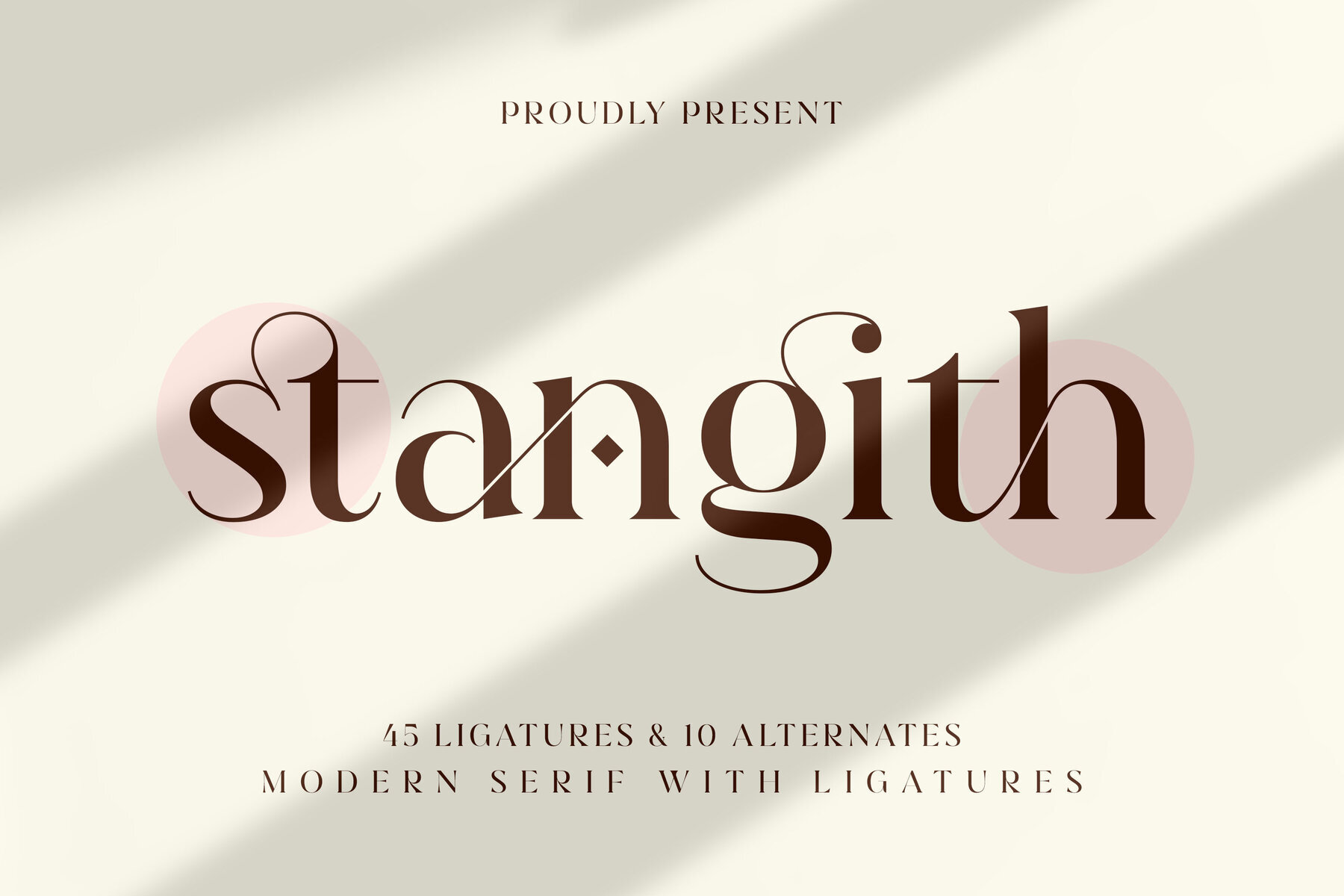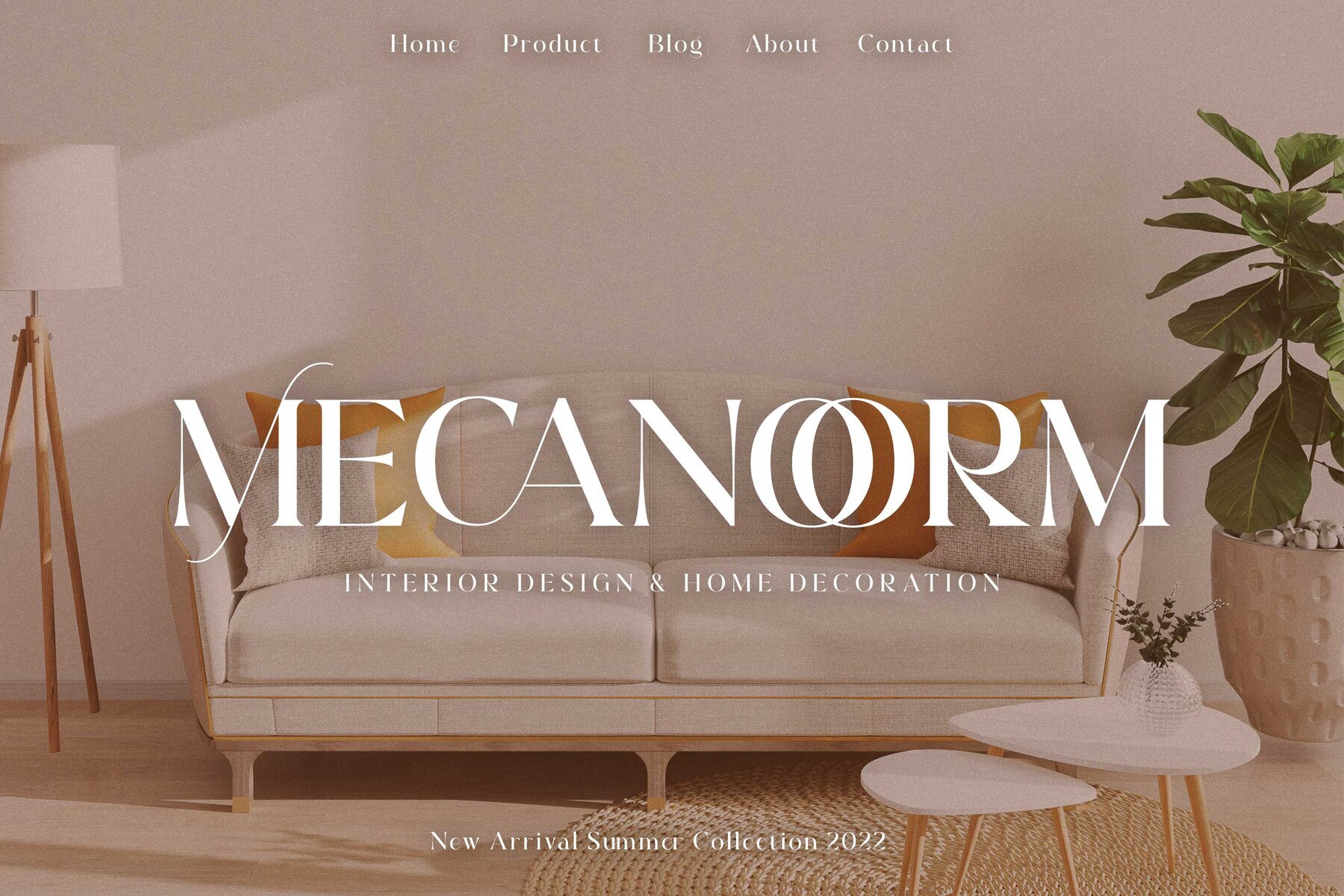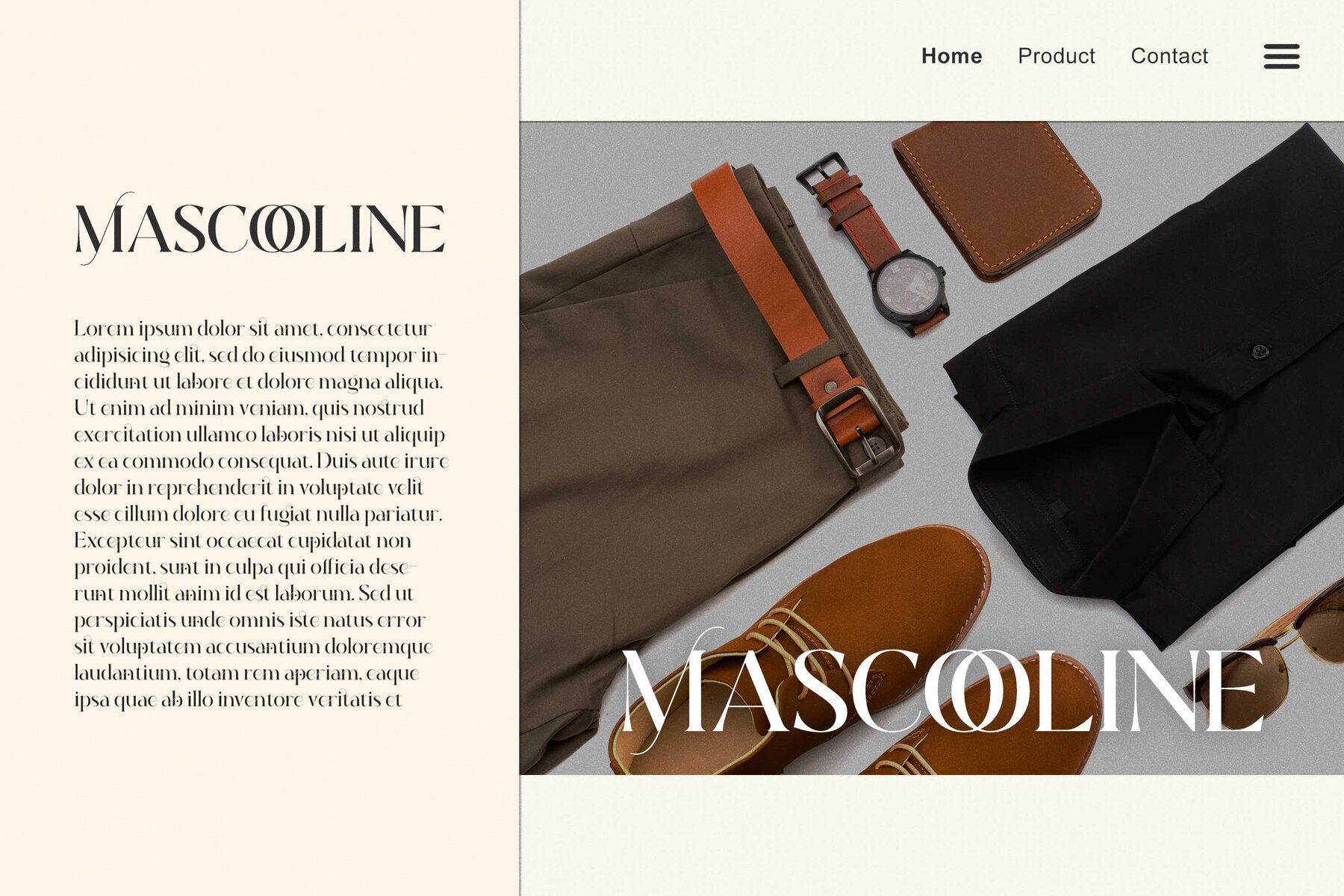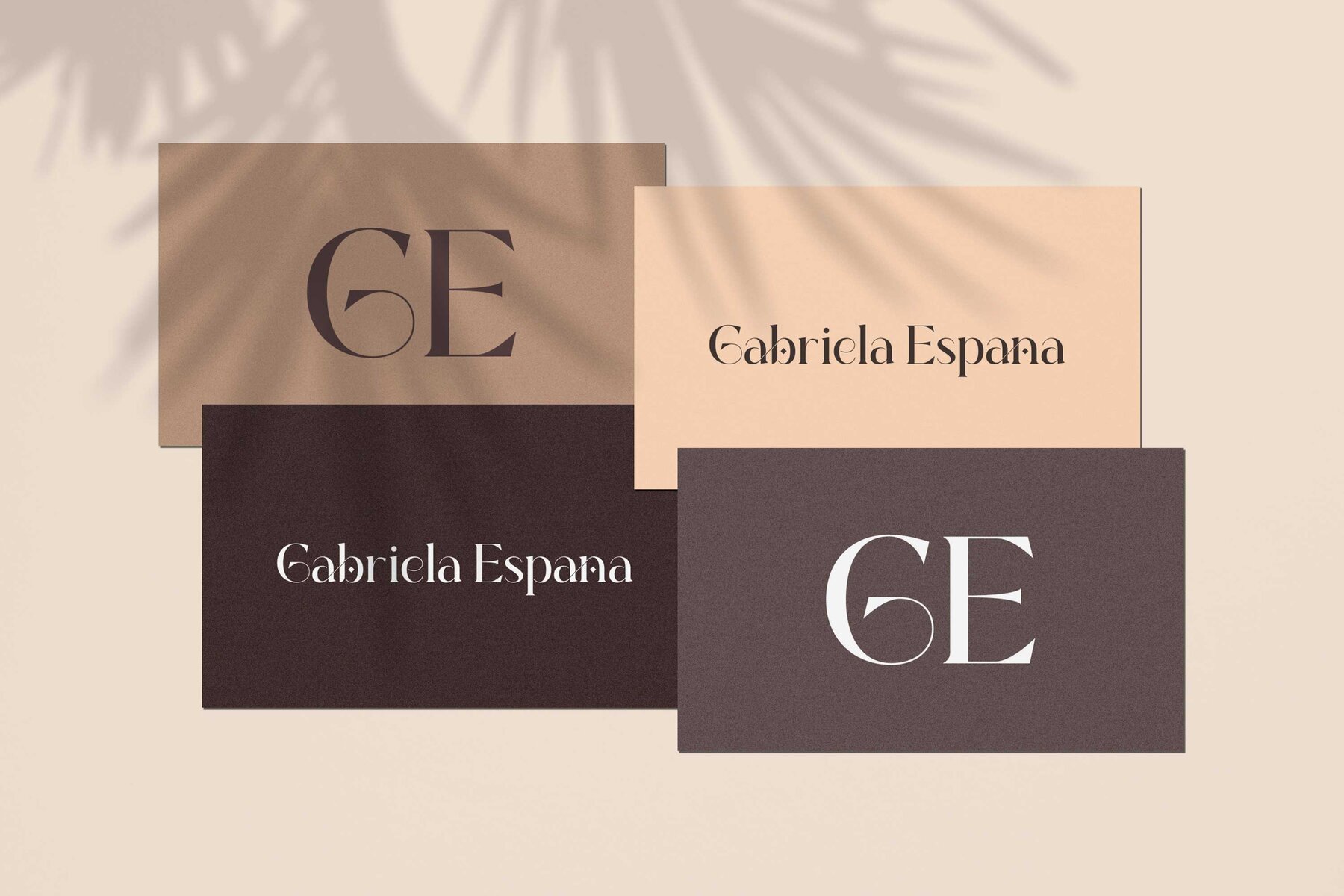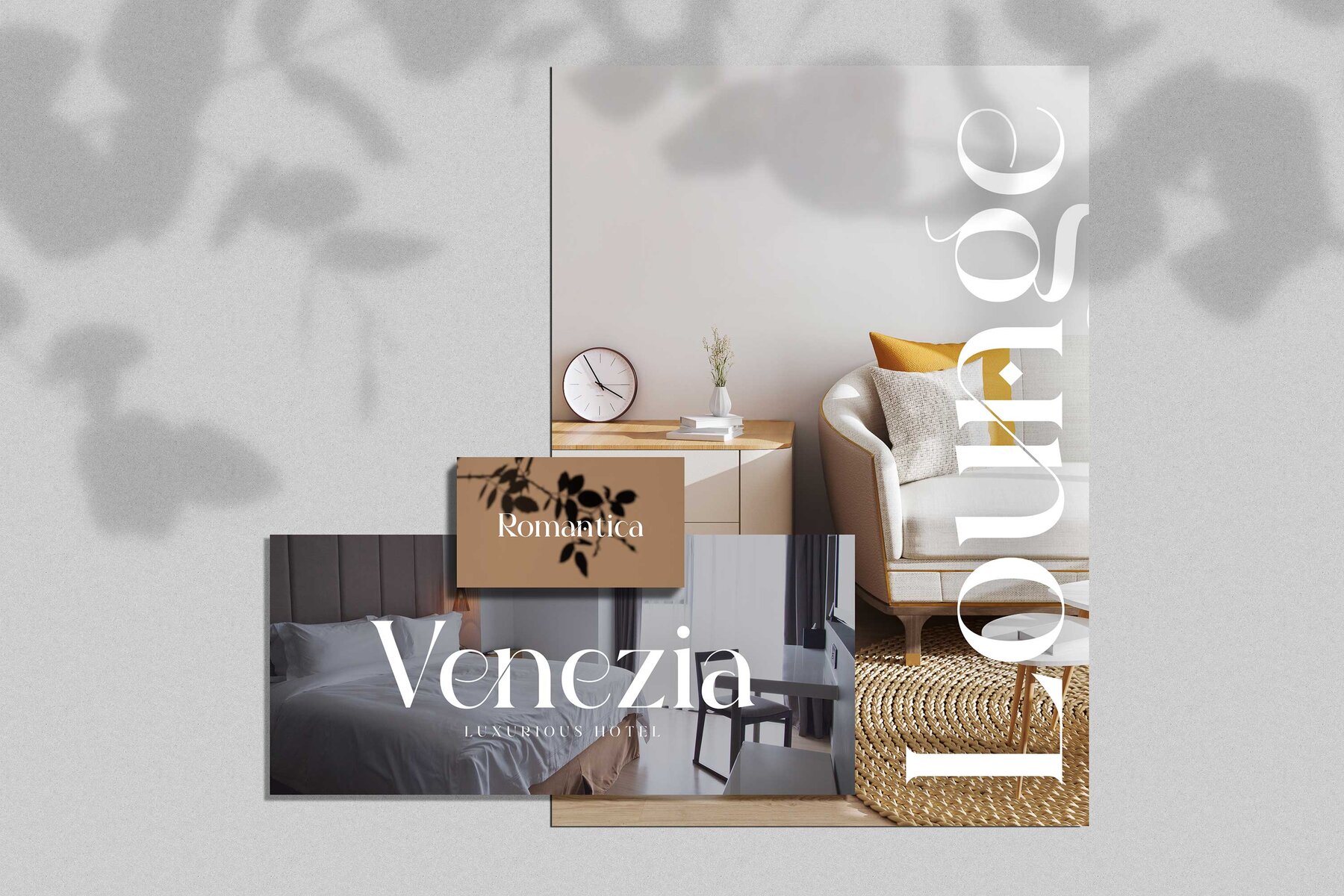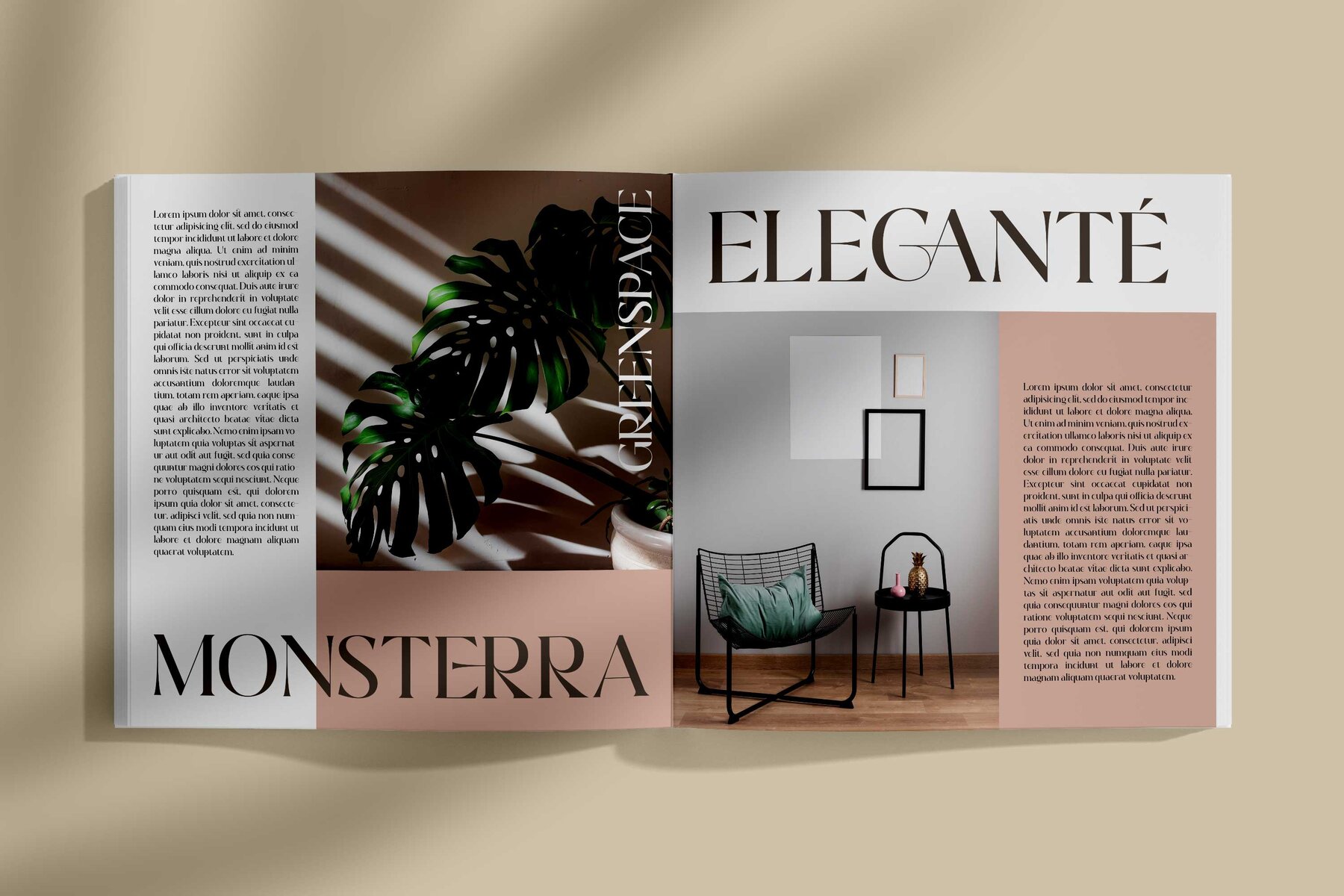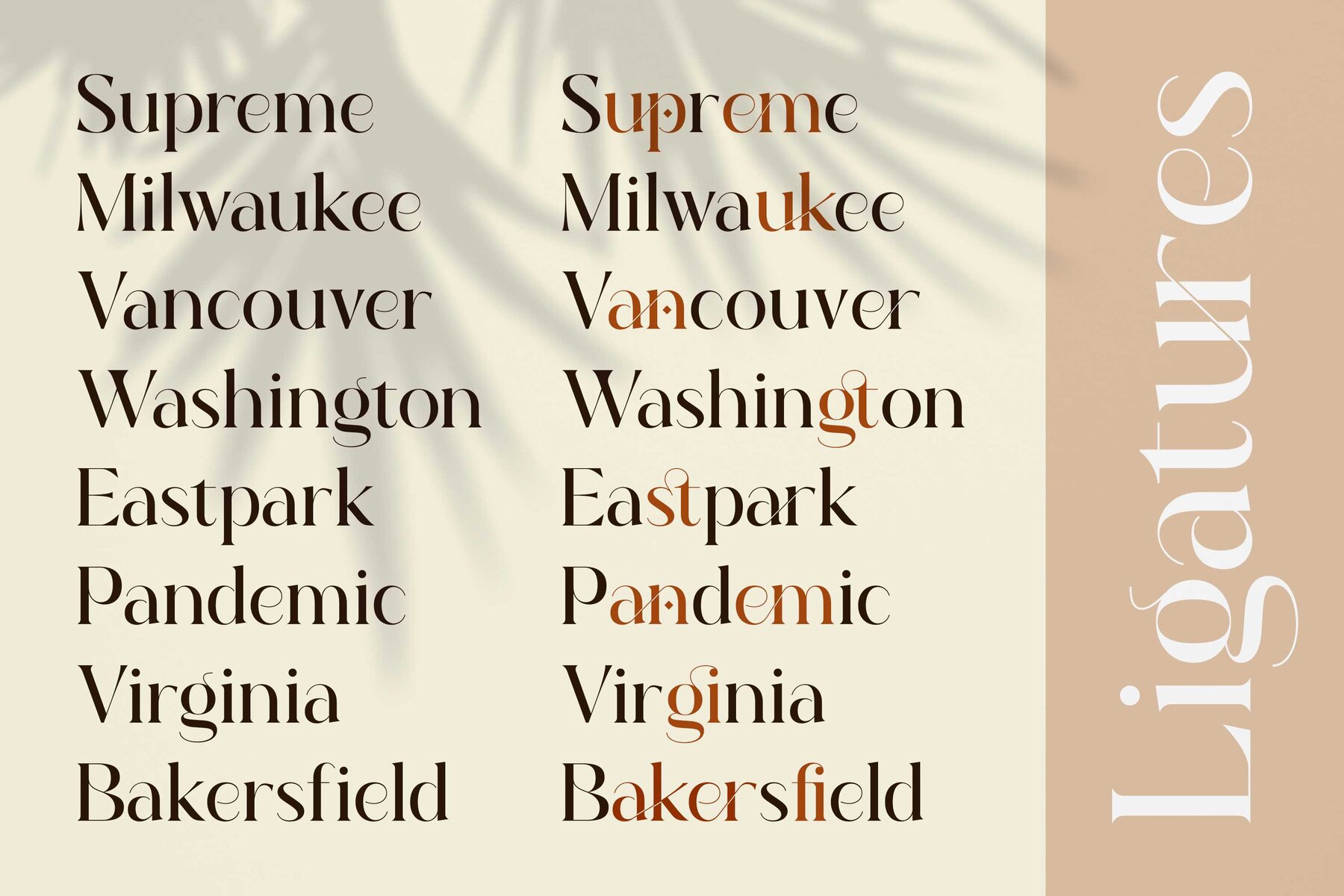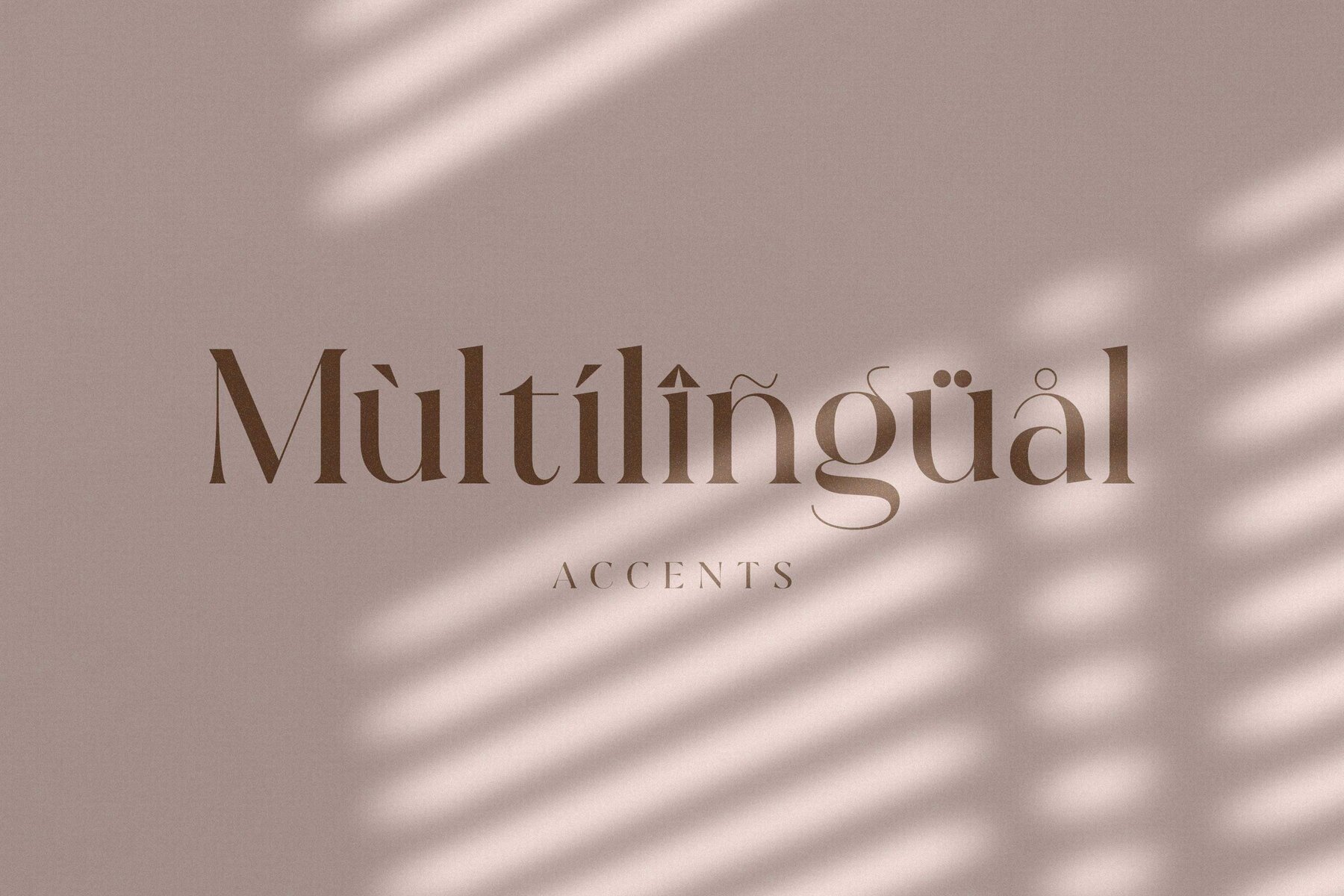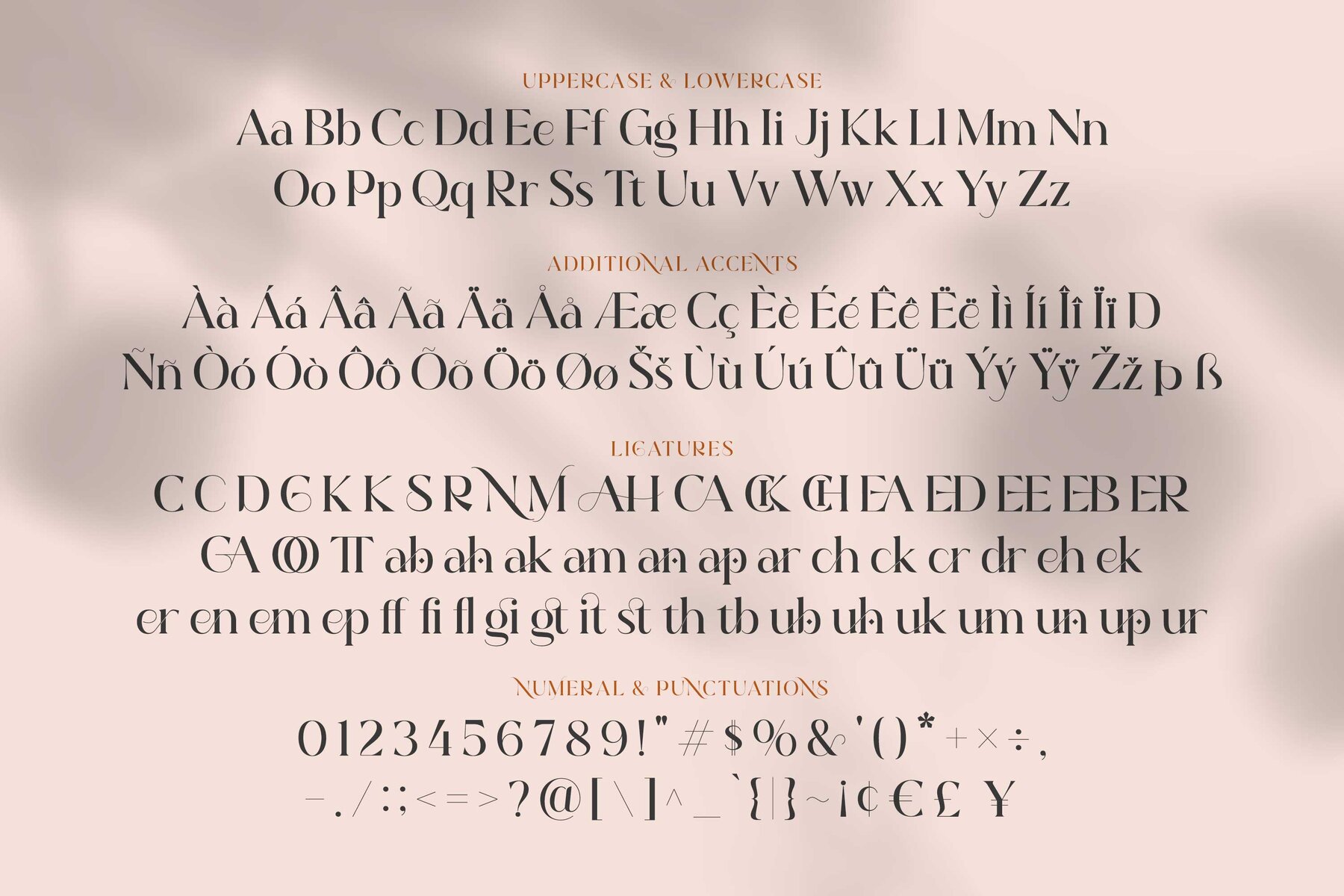
Stangith Font
stangith Regular
Stangith by MokaType Studio is a modern serif font designed for those who appreciate a seamless integration of elegance and individuality. This distinctive typeface boasts an array of ligatures, creating a smooth flow between letters, ideal for crafting memorable word-mark logos, monograms, and attention-grabbing pull quotes. With 45 ligatures and 10 alternate characters, Stangith offers a versatile palette for designers who value variety in their typographical choices. In addition to its stylish ligatures, Stangith includes comprehensive number and punctuation support. The font’s ligature feature can be disabled when standard writing is required, ensuring flexibility across different design contexts.Stangith: An Elegant Serif with Unique Ligatures